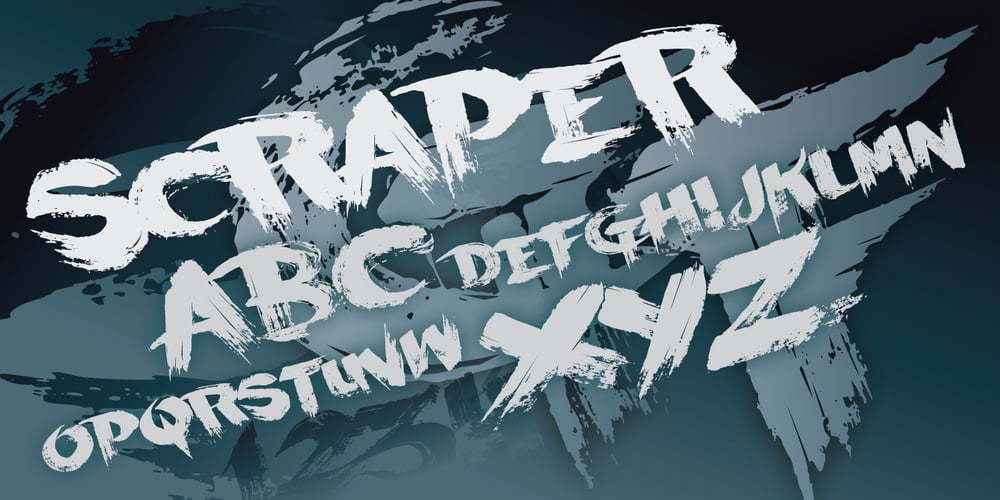
Scraper
Scraper font
Scraper Font Family was designed by Matthew Napolitano and published by Graffiti Fonts. Scraper contains 1 styles and family package options. This rough and bold style uses detail and motion to create text with gritty character. These fat letters mimic a paintbrush or palette knife in a simple graff style.